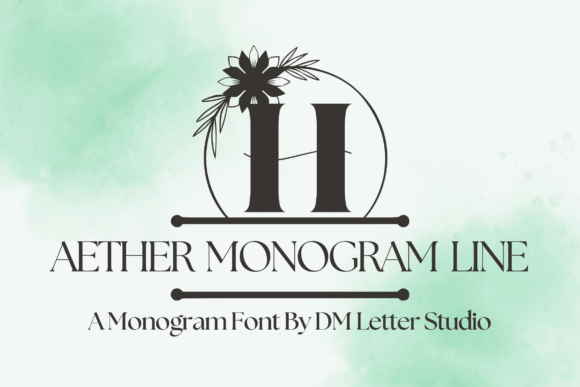
The Monogram Magic of Aether: Elevating Your Designs with Elegance
I still remember the countless hours I spent searching for the perfect font for a wedding invitation project. My client wanted something elegant, sophisticated, and truly unique. As I scrolled through page after page of Google results, I felt like I was striking out. That was until I stumbled upon Aether Monogram Line Font. ✨ It was love at first sight! With its refined letterforms and intricate details, I knew I had found the perfect fit.
• ✨ Elegant and refined letterforms perfect for monograms and logos
• ✅ Intricate details that add a touch of sophistication to any project
• 💫 Versatile and adaptable for various design applications, from wedding invites to luxury branding
• 🎨 Beautifully crafted to add a unique touch to custom crafts and stationery
• 🤔 Some users may find the font a bit challenging to pair with other typefaces due to its distinctive style
• ⚠️ Limited availability of certain characters or glyphs, which may require additional design workarounds
The Designer Inspiration Behind Aether Monogram Line Font
The story goes that the designer of Aether Monogram Line Font was inspired by the intricate details and elegant lines of classic typography. With a passion for creating unique and sophisticated typefaces, the designer poured their heart and soul into crafting a font that would elevate any design project. From the refined letterforms to the intricate details, every aspect of Aether Monogram Line Font was carefully considered to create a truly exceptional typeface.
Q: What makes Aether Monogram Line Font so special?
A: Aether Monogram Line Font is special due to its refined letterforms, intricate details, and versatility in design applications.
Q: Is Aether Monogram Line Font easy to pair with other fonts?
A: While Aether Monogram Line Font can be paired with other fonts, its distinctive style may require some experimentation to find the perfect match.